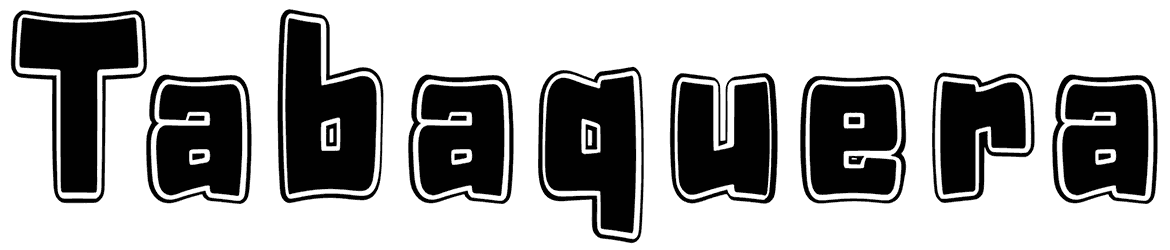
Tabaquera Font
Designed byDeFharo
A suitable and eye-grabbing font plays the role of good flavor in food, so if you want your artwork to look tasty and interesting to the audience, you should never overlook a magical square font such as Tabaquera.
This font comes with bold and blocky characters, thus carrying a sense of jauntiness, momentum, grunge, or decoration. This chunky font can be ideal for your posters, book covers, gift cards, editorial projects, or stationery.